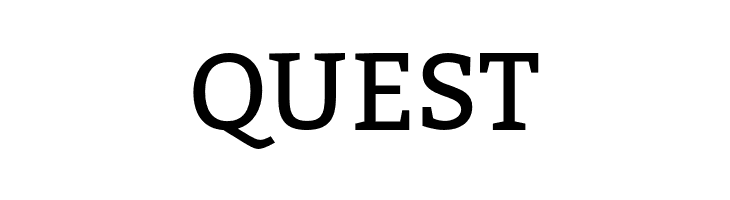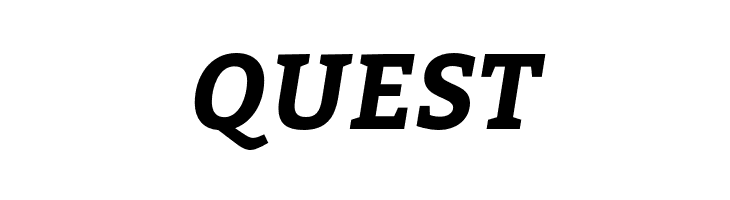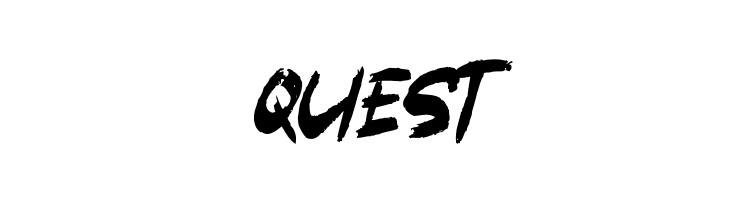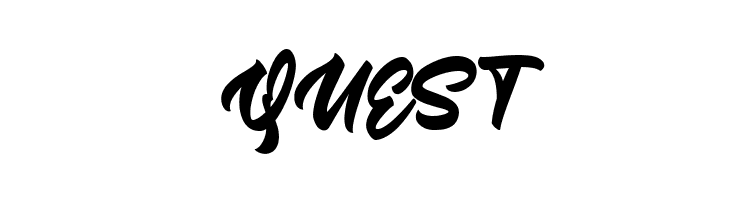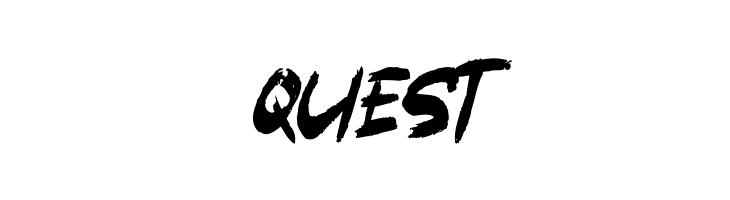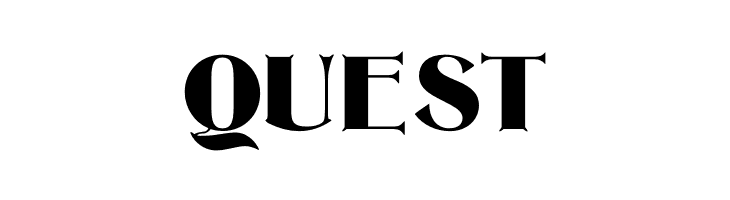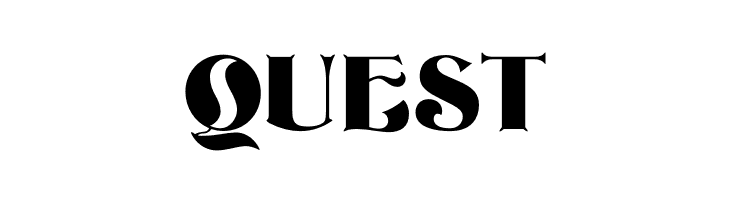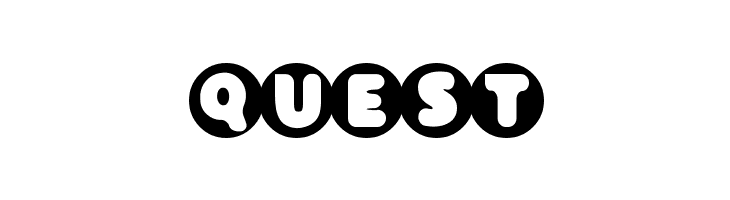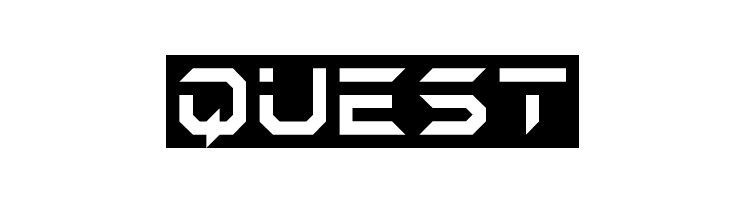
A bold, expressive font with a handcrafted, artistic flair.
A bold serif typeface with high contrast and classic appeal.
A bold, italic serif font with strong strokes and a dynamic, classic appearance.
A bold, rounded geometric font with a modern and friendly style.
An ornate and decorative font with intricate details and flourishes.
A bold, high-contrast font with sharp serifs and elegant flourishes.
A bold, high-contrast font with dramatic, theatrical styling.
A futuristic, hollow font with geometric and angular shapes.
A hollow, inverse, geometric font with a futuristic and edgy style.
A modern, geometric font with bold, rectangular frames around each character.
A festive decorative font featuring characters within holly-adorned bells.
A bold, geometric font with a futuristic and industrial design.
A bold, gothic-inspired font with high contrast and intricate details.
A bold, dynamic brush-style font with sharp angles and thick strokes.
A bold, dynamic script font with flowing, cursive strokes.
A bold, flowing script font with elegant, cursive letterforms.
A bold, organic font with a playful, hand-drawn appearance.
A bold, playful font with a 3D melting effect and thick outlines.
A bold, 3D italic font with a playful, hand-drawn style.
A bold, playful font with thick, rounded characters and a retro vibe.
A bold, italic, and playful font with thick, wavy strokes and a dynamic style.
A bold, condensed font with a playful, hand-drawn style.
Bold, condensed, and italic with a dynamic, fluid style.
A bold, expanded font with wavy, irregular edges for a playful look.
A bold, expanded, and italicized font with a dynamic, fluid style.
Bold, italicized font with a heavy, playful style.
A bold, playful font with a leftward slant and rounded, irregular shapes.
A bold, slanted font with a playful, dynamic style.
A bold, playful font with an irregular, organic design.
A bold, playful font with staggered, irregular letterforms and a quirky, organic style.
A bold, staggered italic font with a playful, hand-drawn style.
A bold, brush-style font with dynamic, hand-painted strokes.
A bold, brush script font with textured, expressive strokes.
A bold, circular font with playful, enclosed characters.
A bold, circular font with playful, cartoon-like characters.